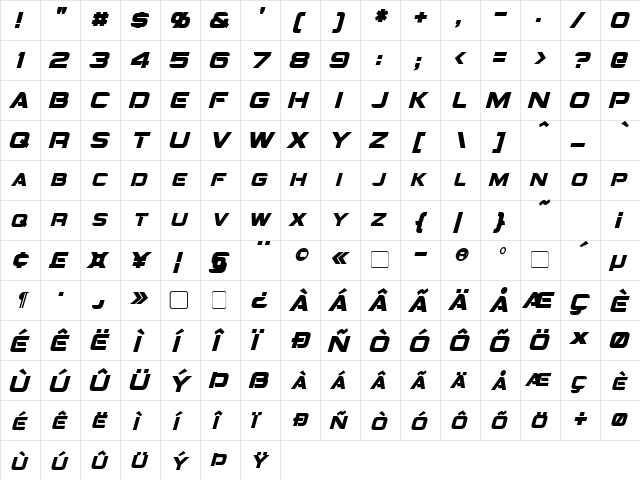
Montalban Condensed Bold Italic Font Preview
| Foundry | Neale Davidson |
| Designer | Neale Davidson |
Design Context for Montalban Condensed Typeface
Montalban Condensed takes a measured approach to typography — its balanced proportions and neutral character make it a reliable workhorse for both digital and print work. The slanted form adds forward momentum and visual energy. Its bold stroke weight gives it real presence on the page. The condensed width makes it efficient for tight spaces without sacrificing legibility.
Pro Tip: Use Montalban Condensed for emphasis, pull quotes, and subheadings where its slanted energy can add rhythm to the layout.